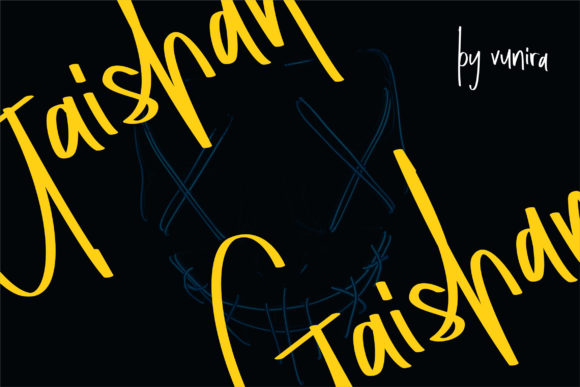
Prepare yourself to be mesmerized by Gaishan Font, a captivating script font that harmoniously blends timeless sophistication with a touch of modern flair. Crafted by the skilled hands of Vunira, this remarkable font exudes elegance, seamlessly adapting to a myriad of creative endeavors, leaving an indelible mark on your designs.
Immerse yourself in the alluring charm of Gaishan Font, thoughtfully designed to elevate your business name to new heights. Its graceful curves and impeccable flow evoke a sense of refined professionalism, resonating with clients and leaving a lasting impression. Experience the allure of a font that effortlessly enhances your brand's identity, exuding confidence and expertise.
Gaishan Font's captivating essence transcends mere aesthetics; it's a versatile chameleon, adapting effortlessly to a symphony of creative pursuits. Envision the allure of letterheads adorned with Gaishan's graceful strokes, or the impact of titles that command attention with its refined elegance. Unleash your creativity and explore the endless possibilities, from stationery that exudes charm to designs that exude an air of sophistication.
Embark on a design journey like no other with Gaishan Font as your trusted companion. Its versatility knows no bounds, inviting you to explore a world of artistic expression. Allow your imagination to soar as you craft captivating logos that captivate audiences, or indulge in the art of crafting enchanting invitations that promise an unforgettable experience. The possibilities are boundless, limited only by your own boundless creativity.
Within Gaishan Font lies a treasure trove of captivating OpenType features, awaiting your skilled touch to unleash their full potential. Discover the magic of ligatures that dance harmoniously across your designs, adding a touch of fluidity and grace. Explore the expressive power of stylistic alternates, granting you the freedom to customize your designs with a unique personal touch. With Gaishan Font, the possibilities are endless, empowering you to create designs that resonate with your audience and leave a lasting impression.